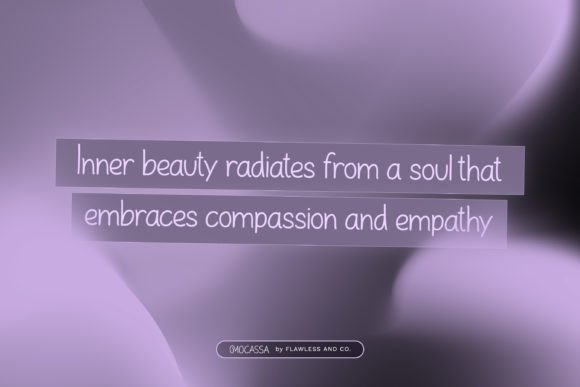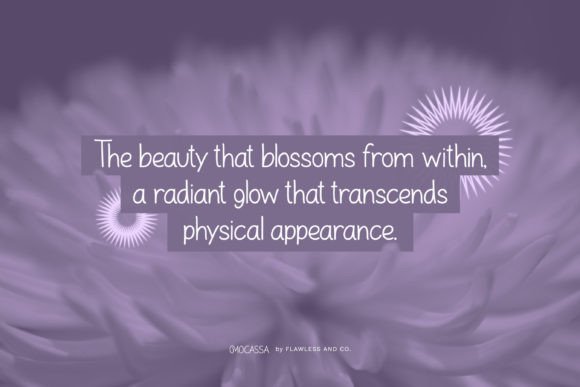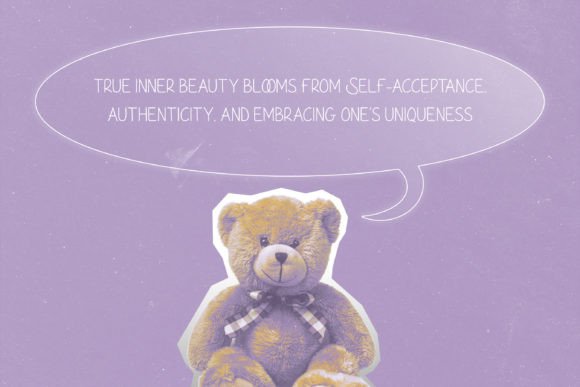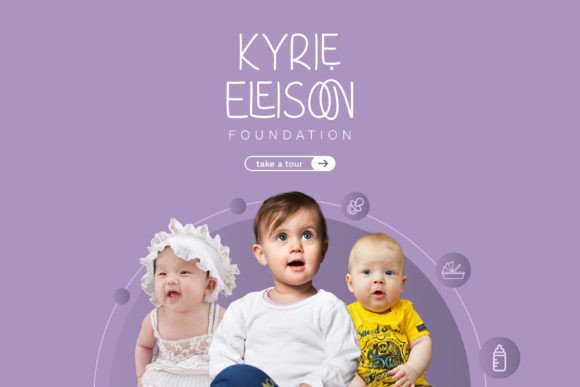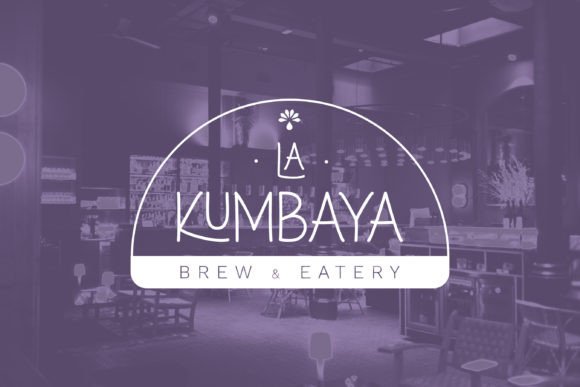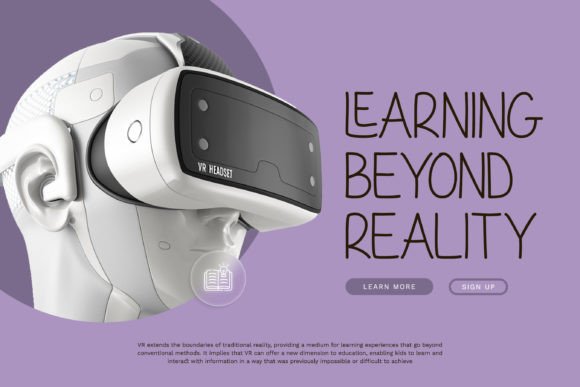
Introduction to Mocassa Font
As a designer, you know that sometimes the perfect font can make all the difference in bringing a creative project to life. I still remember the thrill of stumbling upon that one font that perfectly captured the essence of my design – it was like the missing piece of a puzzle had finally fallen into place. For those of us who have experienced this moment of font-filled joy, I’m excited to introduce you to the Mocassa Font, a high-quality, free download that’s about to become your new go-to design resource.
What sets Mocassa apart is its unique blend of handwritten charm and modern sans serif style, making it perfect for projects that require a balance of informality and professionalism. With its transparent background and high-quality design, Mocassa Font is a valuable addition to any designer’s toolkit, offering endless possibilities for creative expression.
Key Features of Mocassa Font
- High-quality font design, perfect for various creative projects and as a valuable design resource.
- Features a transparent background, allowing for seamless integration with different design elements and backgrounds.
- Designed with a high resolution, making it suitable for print and digital applications, including logos, signage, and marketing materials.
- Unique characteristics and stylish design make it an excellent choice for creative projects, such as branding, advertising, and editorial content.
Honest Review: Mocassa Font
I recently came across the Mocassa Font, and I must say it’s a fantastic addition to any designer’s toolkit. As a design resource, it offers a unique blend of modern and vintage styles that can add a touch of sophistication to any creative project.
One of the standout features of the Mocassa Font is its high-quality design, with crisp lines and smooth typography that make it perfect for both digital and print applications. I particularly appreciate the transparent background option, which makes it easy to use in complex design compositions.
Here are some of the things that work well with the Mocassa Font:
- ✨ Unique blend of modern and vintage styles
- ✨ High-quality design with crisp lines and smooth typography
- ✨ Transparent background option
- ⚠️ Limited font variations (only a few styles available)
- ⚠️ Not ideal for use in complex text-heavy compositions
Overall, I’m thoroughly impressed with the Mocassa Font, and I think it’s a great choice for designers looking to add some visual interest to their creative projects. While it may not be perfect, its unique style and high-quality design make it a valuable addition to any design toolkit.
The Mocassa Font is perfect for a variety of creative projects, including:
Graphic design
Logo design
Web design
Print design
For the best results, use the Mocassa Font in conjunction with other high-quality design resources. Experiment with different font sizes, colors, and styles to create a unique and eye-catching design.
Alternatives to Mocassa Font
The Great Vibes Font is a high-quality, elegant script font ideal for design projects that require a touch of sophistication. It’s perfect for wedding invitations, branding, and creative projects where a refined look is necessary. When to use: Luxury brands, high-end design, and elegant communication.
Comparison to Mocassa Font: While Mocassa Font has a more playful feel, Great Vibes Font offers a more refined and sophisticated look, making it suitable for projects that require a more formal tone.
The Mocassa Font is available in various file formats, including OTF, TTF, and WOFF, ensuring compatibility with most design software and operating systems. This allows designers to easily integrate the font into their high-quality design projects.